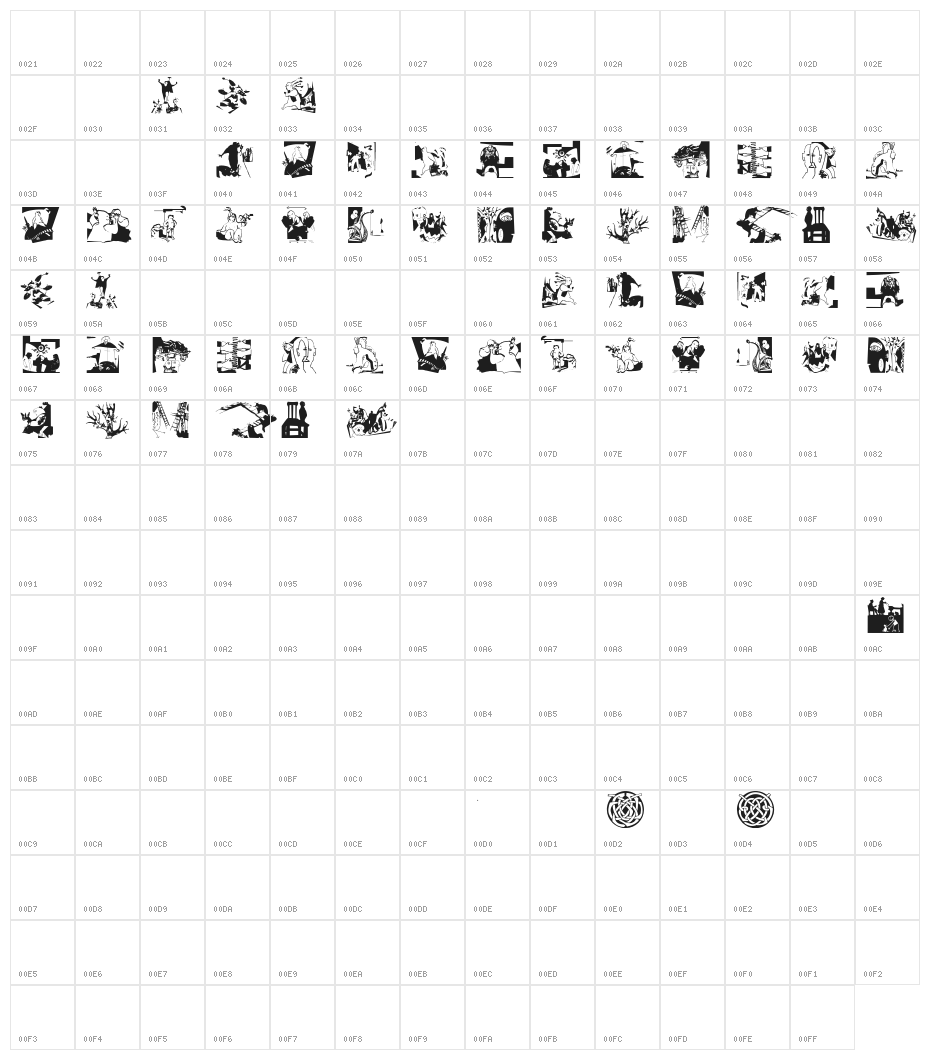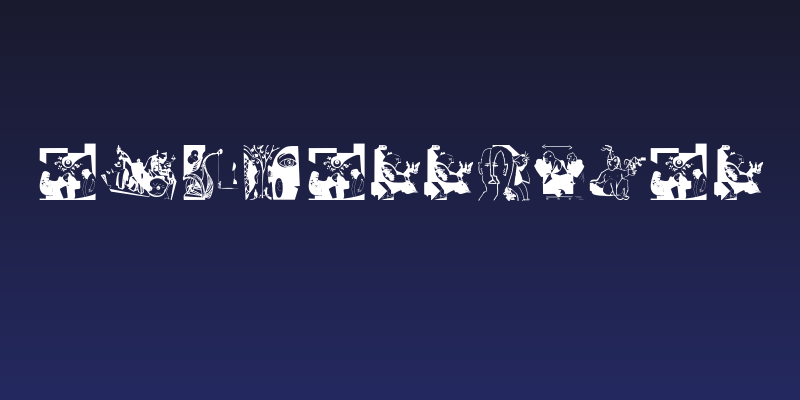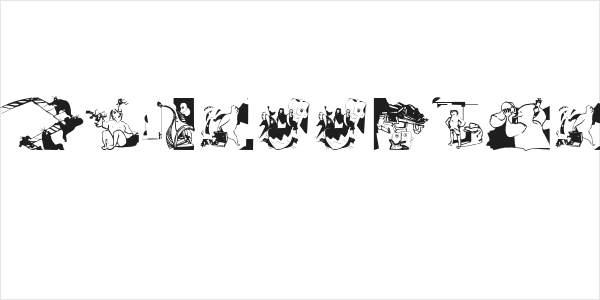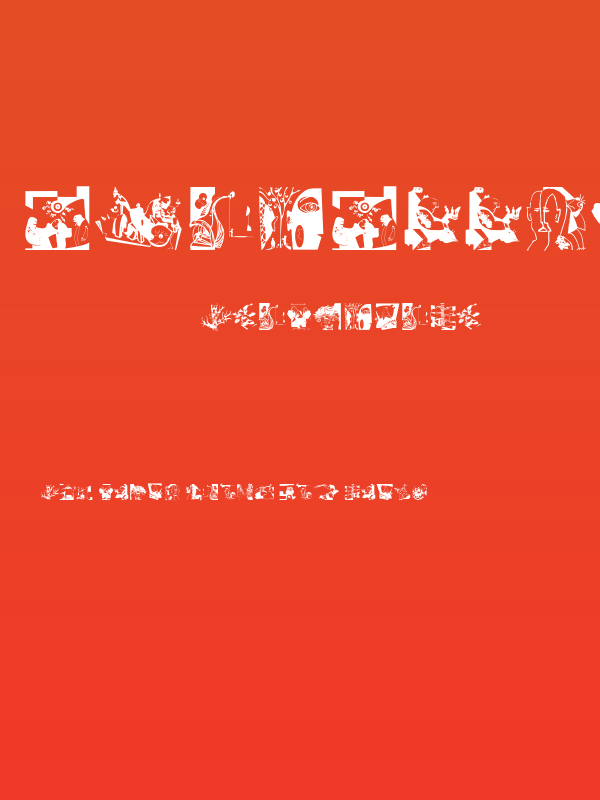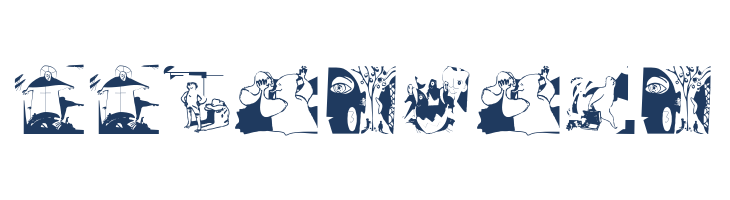
Expressiones Font
Expressiones Description
This font is a highly decorative and artistic typeface where each character is represented by a unique and intricate illustration. The illustrations are whimsical and imaginative, depicting various scenes and characters that blend seamlessly into the shape of each letter and number. This creates a visually engaging and storytelling aspect to the font, making it more of an art piece than a traditional typeface. The font is not suitable for body text due to its complexity but serves as a captivating display font for creative projects. The characters are detailed and vary significantly in design, offering a diverse range of visual elements within the same typeface.
| Proposed Projects | Ideal for artistic projects, posters, book covers, and any creative work that benefits from a storytelling or illustrative element. |